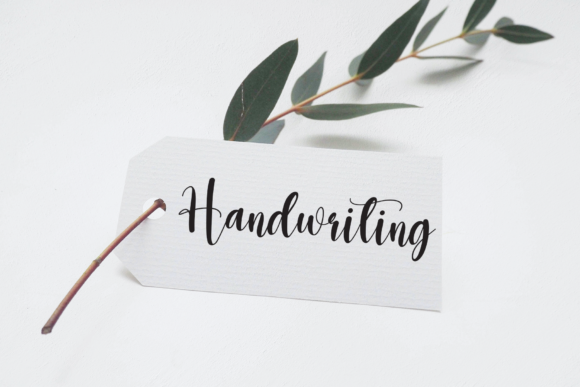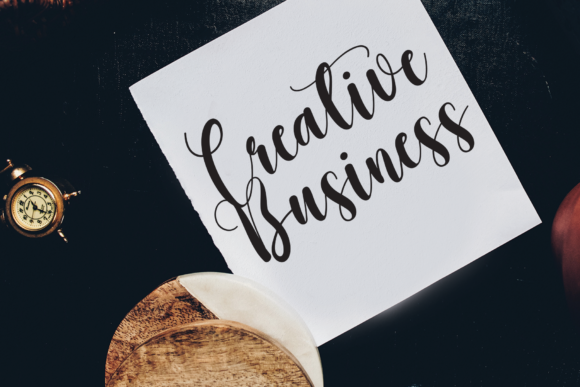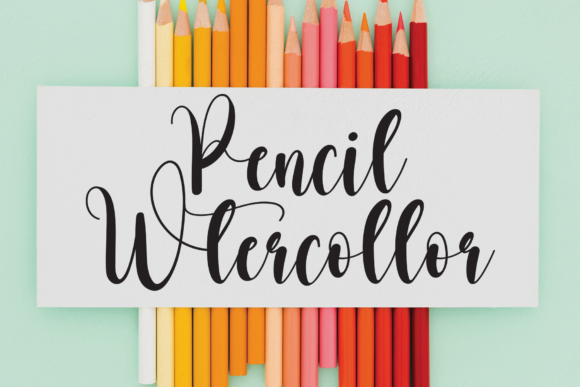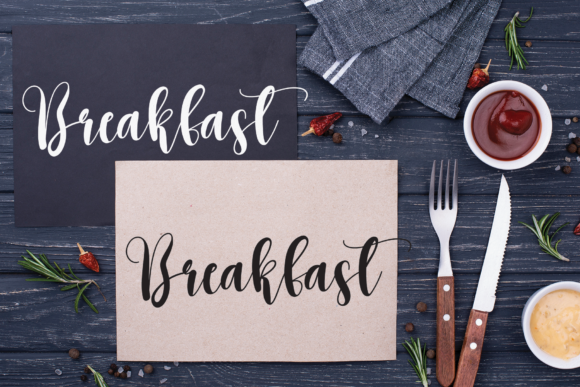
Geography Font
About Geography Font
Geography is a lovely and timeless handwritten font. It is the best choice for creating eye catching logos, branding and quotes. Every letter has a unique and beautiful touch, which will make your design come alive!